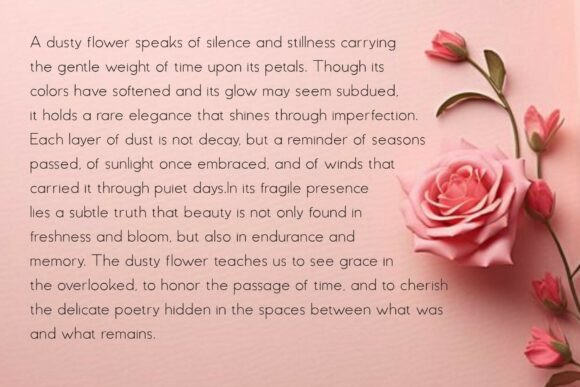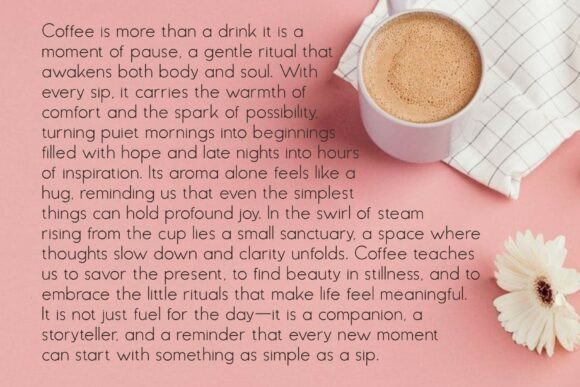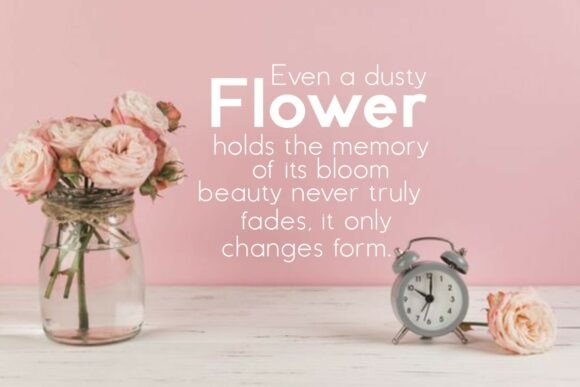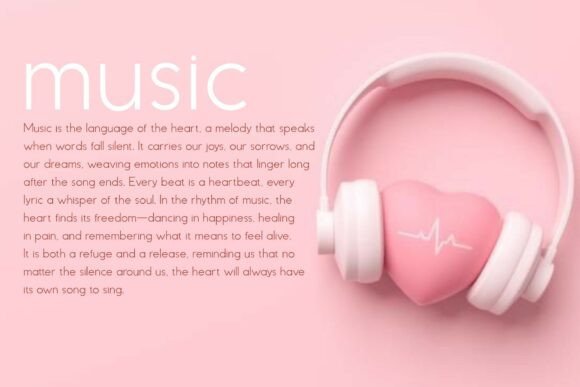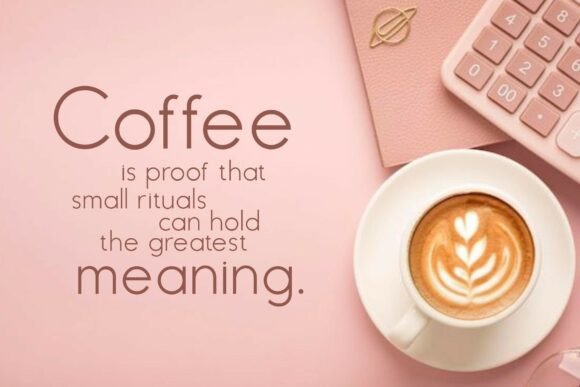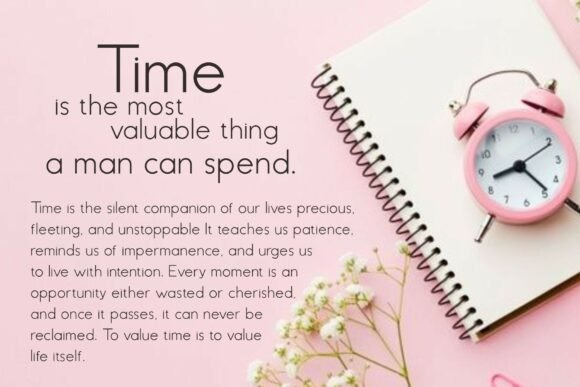
A New Era of Sophistication: The Avalia Font
Have you ever stumbled upon a design that instantly makes you feel calm and refined? For me, that moment came when I saw a beautiful wedding invitation designed with the Avalia Font. Its soft, elegant lines and gentle curves immediately caught my attention, and I knew I had to learn more about this stunning typeface.
The Avalia Font is a modern sans serif font designed to convey warmth and sophistication while maintaining excellent readability. Its delicate yet modern character makes it ideal for designs that aim to feel feminine, calm, and premium. Whether you’re a designer looking to elevate your brand’s aesthetic or a business owner seeking to communicate elegance without shouting, the Avalia Font is a valuable addition to your design toolkit.
Avalia Font Key Features
- Font Family: Avalia is a modern sans-serif font family designed for digital media.
- Font Sizes: Avalia comes in 6 font weights: Light, Regular, Medium, SemiBold, Bold, and Black.
- Character Set: Supports a wide range of languages, including Latin, Cyrillic, and Greek scripts, with over 2000 glyphs.
- Resolution: Optimized for high-resolution displays, including Retina and 4K screens, with a resolution of 300 DPI or higher.
- Unique Characteristics: Avalia features a clean and minimalist design, with a focus on legibility and readability in digital environments.
Avalia Font Review
Overall, I think Avalia Font is a decent addition to any design project, but it’s not without its limitations. ✨ The font’s unique blend of modern and classic elements gives it a nice, timeless feel that can work well in various contexts.
- ✨ Avalia’s elegant lines and subtle flourishes make it a great choice for headings and titles.
- ✨ The font’s versatility allows it to work well in both digital and print media.
- ✨ The subtle weight and size variations make it easy to create visual hierarchy in your designs.
- ⚠️ Avalia Font can feel a bit overused, especially in crowded digital spaces.
- ⚠️ The font’s classic feel can sometimes make it feel dated or less exciting than more modern options.
- ⚠️ Avalia Font doesn’t have a wide range of language support, which can limit its use in multilingual projects.
Overall, Avalia Font is a solid choice for designers who want a classic, elegant font that can add sophistication to their projects. However, it’s not the most innovative or exciting option out there, and its limitations should be carefully considered before choosing it for a project.
Avalia Font is ideal for use in creative projects, such as:
- Designing flyers and brochures.
- Creating social media graphics.
- Developing branding materials.
To get the most out of Avalia Font, experiment with different font sizes, colors, and combinations to create visually appealing designs.
Alternatives to Avalia Font
Playfair Display is a luxurious and elegant serif font perfect for creating a high-end look. It is ideal for use in magazine titles, wedding invitations, and other materials where sophistication is required. Compared to Avalia Font, Playfair Display has a more classical and traditional feel, while Avalia Font has a modern and sleek appearance.
Montserrat is a modern sans-serif font that is clean, simple, and highly legible. It is perfect for use in digital products, such as mobile apps, websites, and video games. Compared to Avalia Font, Montserrat has a more geometric and futuristic feel, while Avalia Font has a more fluid and organic appearance.
Lato is a clean and modern sans-serif font that is highly versatile and suitable for use in a wide range of applications, including logos, titles, and body text. It is ideal for use in digital products, as well as in print materials such as brochures and business cards. Compared to Avalia Font, Lato has a more minimalist and neutral feel, while Avalia Font has a more expressive and dynamic appearance.